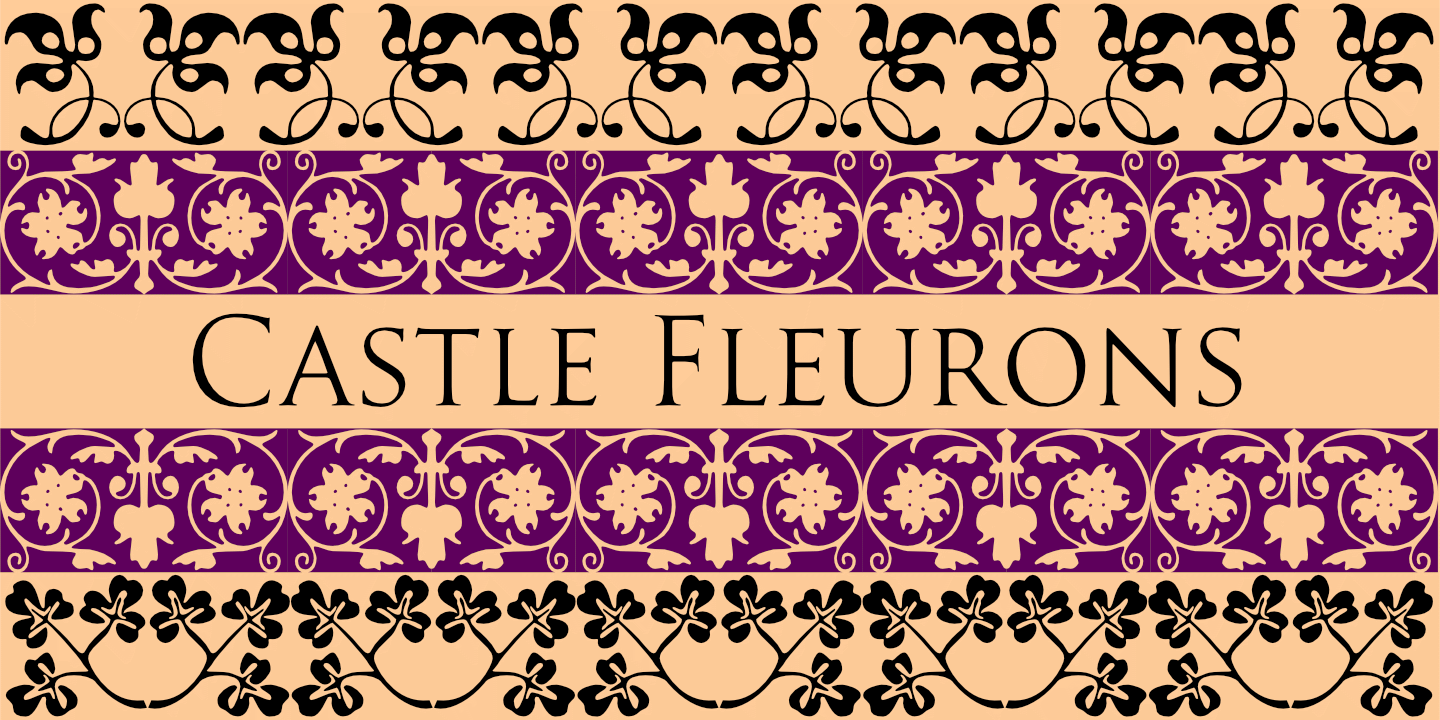
Castle Fleurons™
A delightful collection of more than 200 classic fleurons. Useful for adding a tasteful accent to your documents or for creating borders. Although this font takes advantage of Unicode, all fleurons have been replicated into normal keyboard positions for access from applications that are not Unicode-savvy.